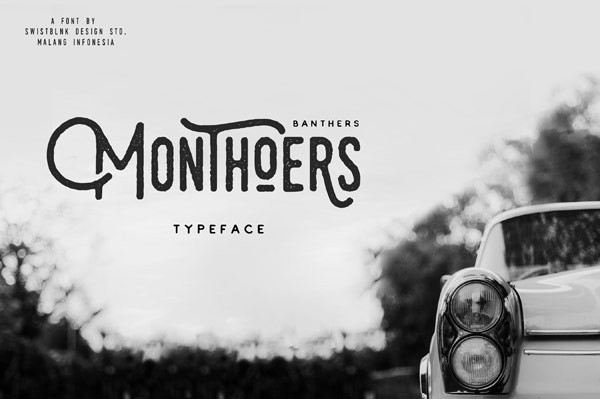
The Monthoers font, a handmade retro display typeface.
Agga Swistblnk, a Malang, Indonesia based graphic designer and founder of the Swistblnk Design Studio is specializing in handmade fonts and lettering. In 2015, he has created the Monthoers font, a handmade retro display typeface that comes in two styles, a regular version and a textured vintage version. This font combines classic typography with a touch of modern handlettering styles.
The Monthoers typeface consists of more than 197 glyphs including stylistic sets, ligatures, contextual alternates, and many more. This typeface is well suited for vintage inspired titles or logo designs. For further information, just follow the link below.